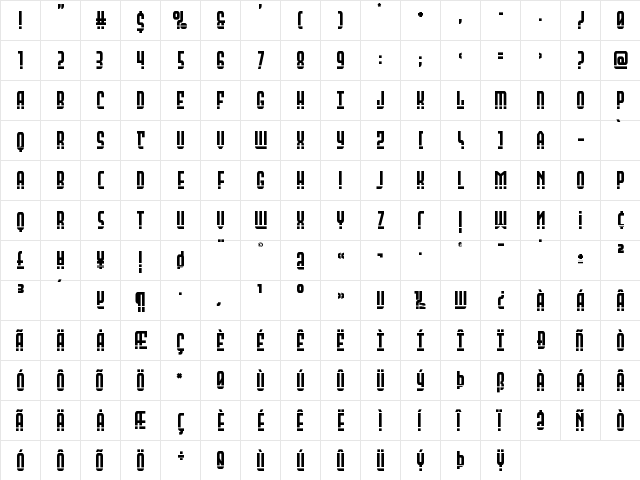
Peace & Houston Laser Regular
Design Context for Peace & Houston Laser Typeface
Peace & Houston Laser is a composed and adaptable typeface that performs quietly and consistently across a wide range of design contexts.